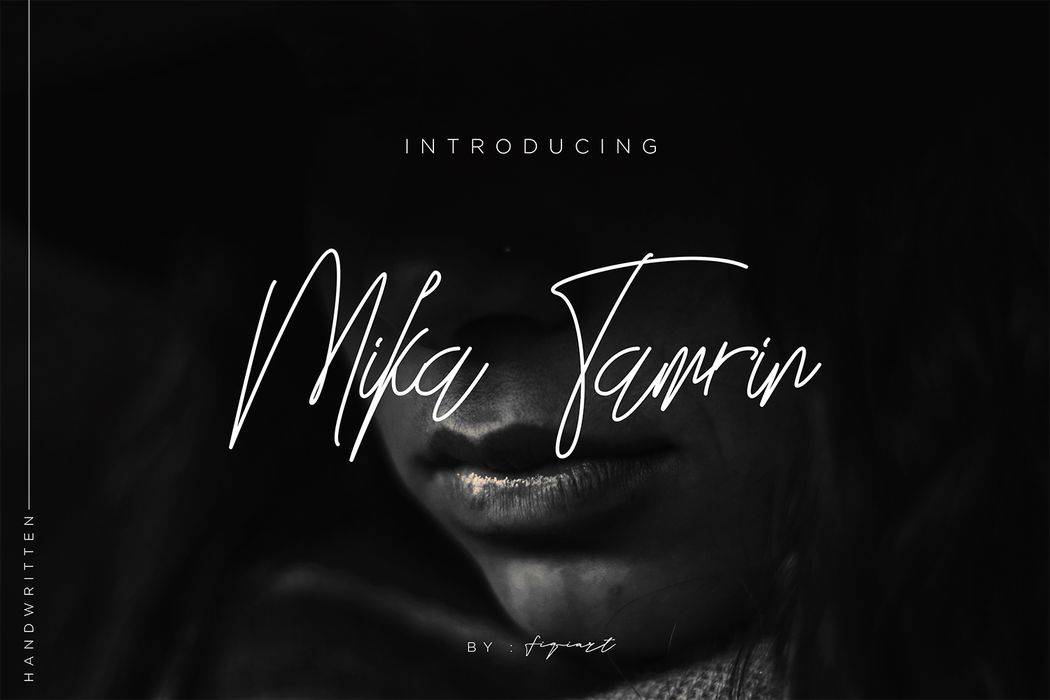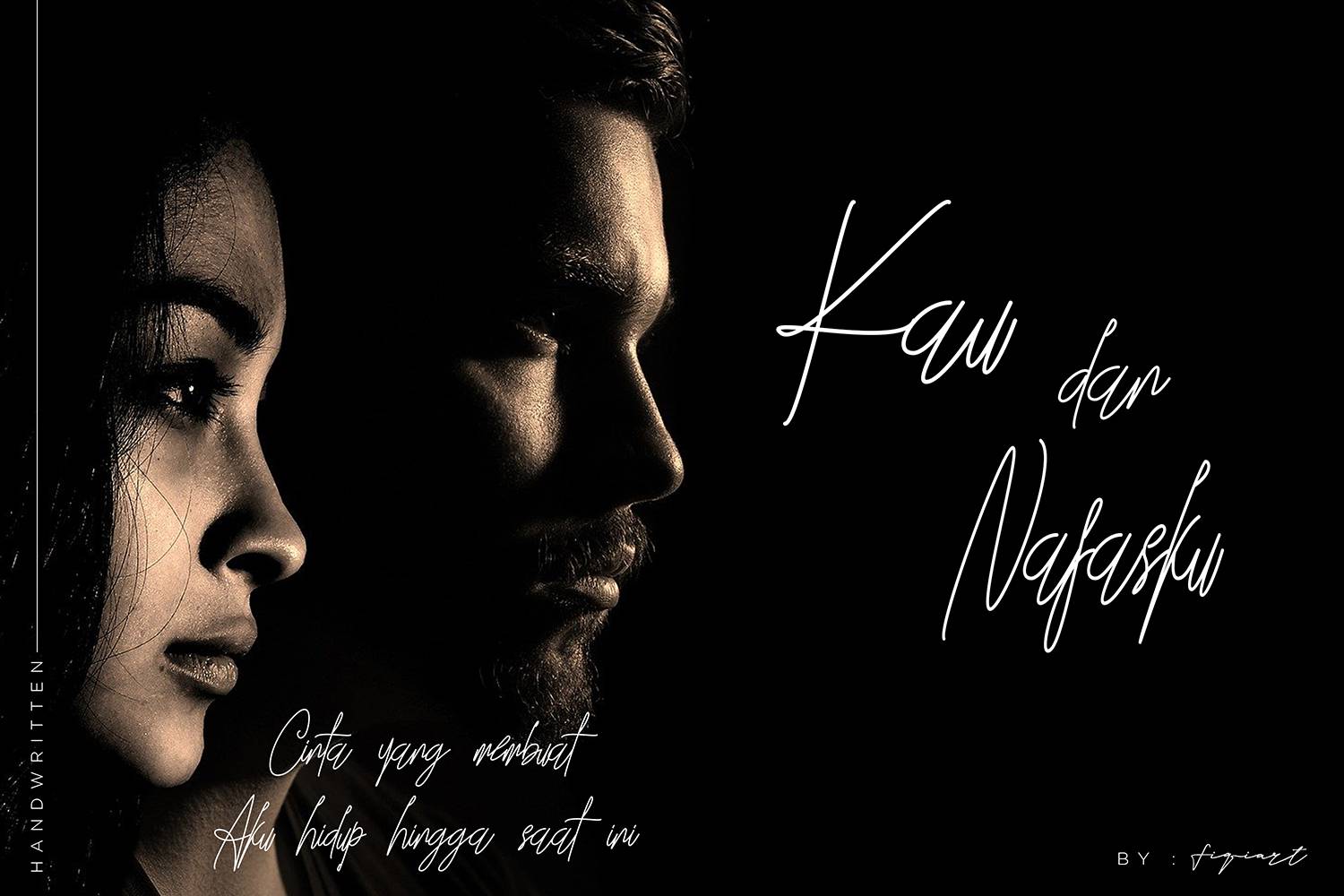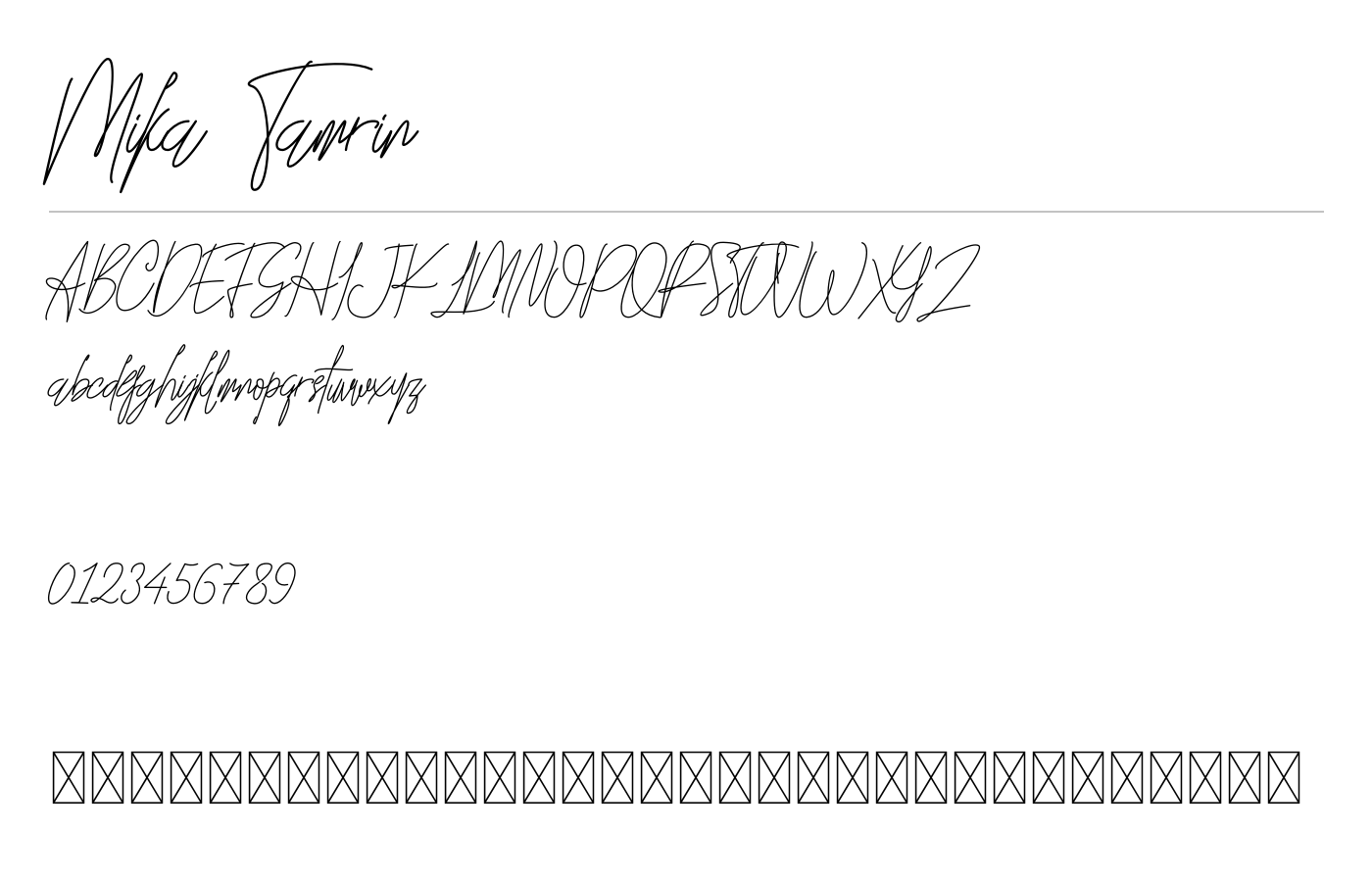
Mika Tamrin is a delicate, handwritten script font with tall, slender letterforms and a light, airy feel. Its fine, flowing strokes evoke elegance and sophistication, making it perfect for branding, invitations, and editorial design that seek a personal yet refined touch. This font works especially well in contexts where a stylish, modern script adds a sense of grace and individuality.
Mika Tamrin Font
About Mika Tamrin Font
| Font family | Mika Tamrin Font |
| Designer | fiqiart |